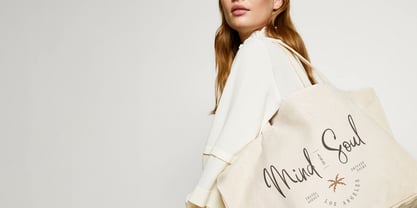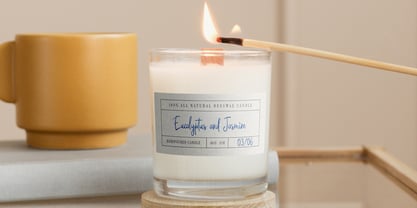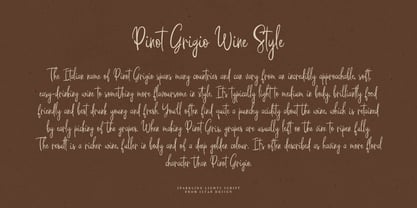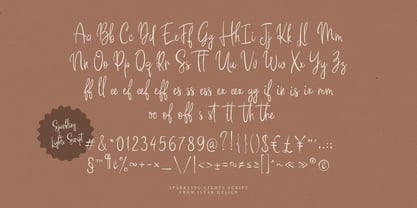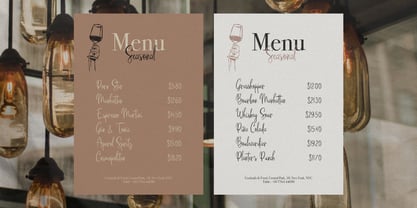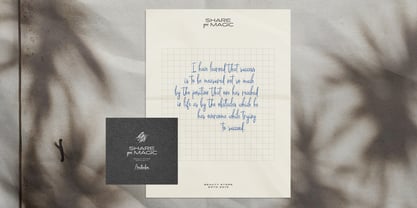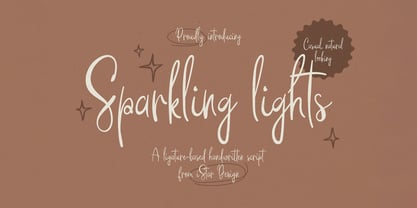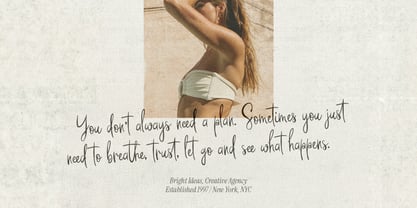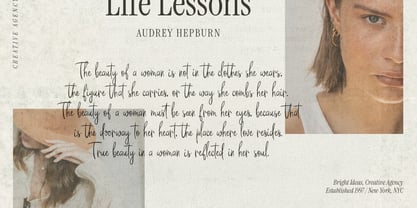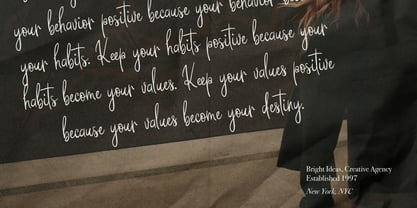
Sparkling Lights
by Tetiana Bunakova
The Sparkling Lights Font Family was designed by Tetiana Bunakova and published by Tetiana Bunakova. Sparkling Lights contains 1 styles. More about this family
Sparkling Lights Script is designed to add natural looking handwritten touch to your projects. With seamless opentype ligatures, each letter flows beautifully, creating an authentic, cohesive look. Perfect for social media, professional presentations, or any creative venture needing a genuine touch.